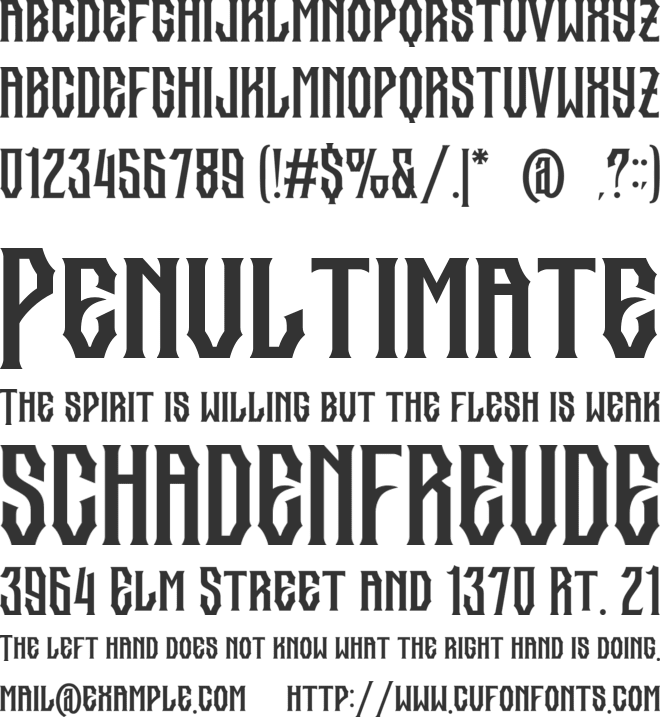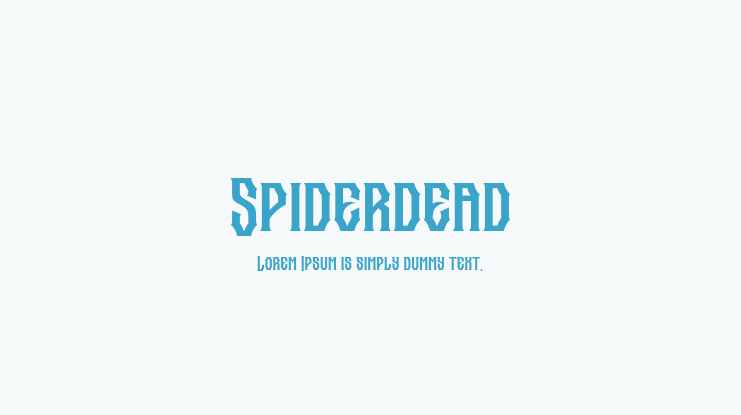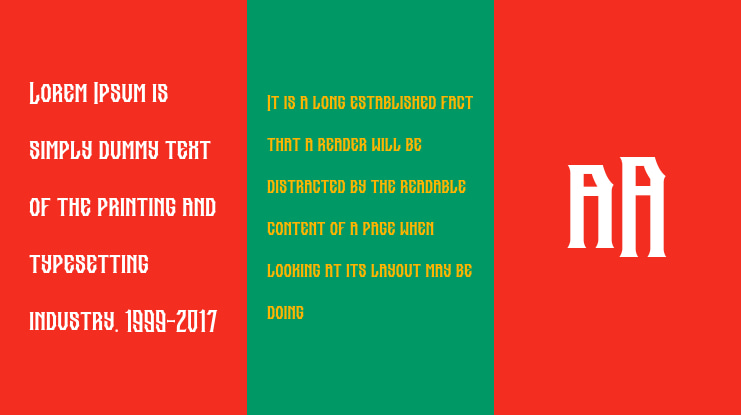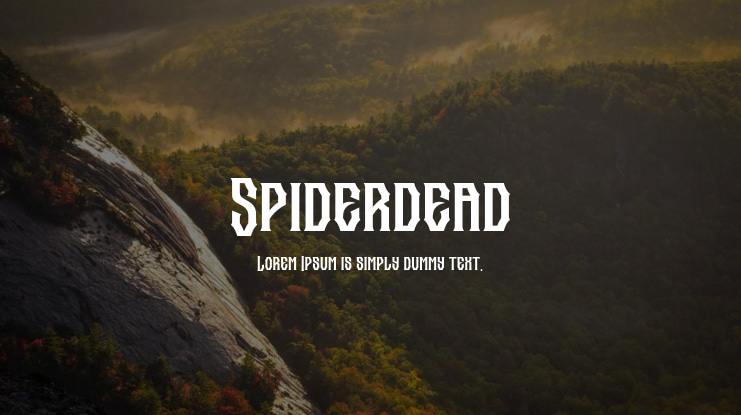
Spiderdead Font
Spiderdead Typeface: The Ultimate Arachnid-Inspired Font
Spiderdead is a meticulously crafted arachnid-themed display typeface that combines intricate details with a bold, edgy design. Perfect for projects that require a menacing, gothic, or horror aesthetic, Spiderdead brings an unmistakable sense of danger and drama to any creative endeavor. Inspired by spider webs, arachnid anatomy, and tribal motifs, this font offers both versatility and stunning visual appeal.